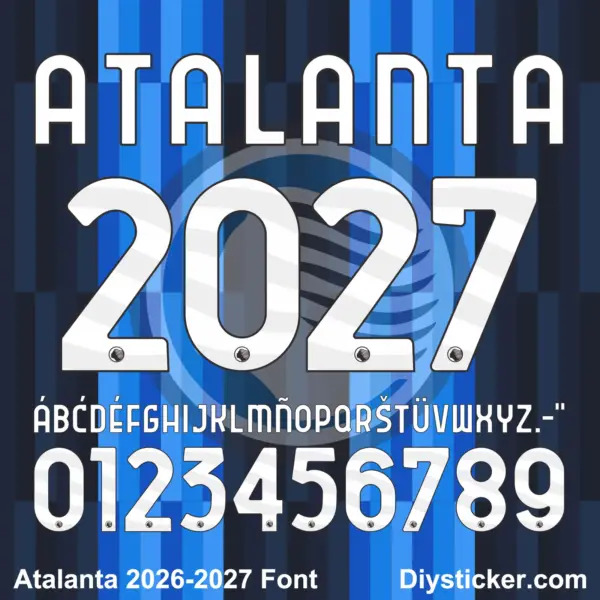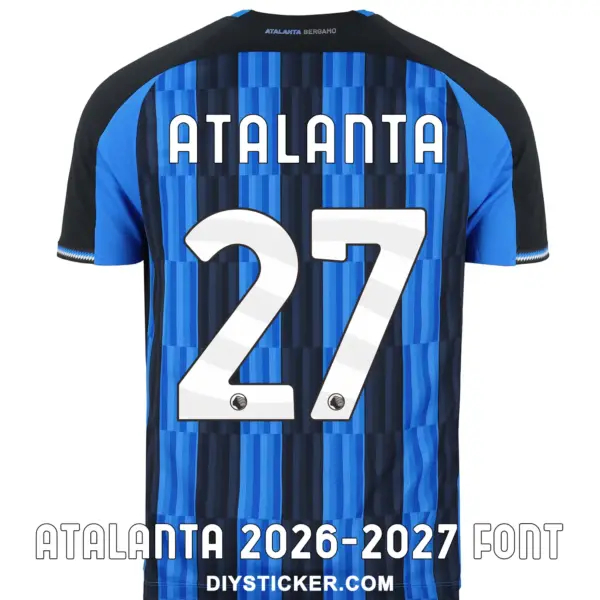
Equip your workshop floor with the verified Atalanta 2026-2027 font master file bundle, engineered specifically for custom uniform printers, sports apparel shops, and football jersey collectors. This premium digital asset delivers a perfect recreation of the clean rounded-corner sans-serif typography, subtle diagonal shading highlights, and official baseline circular goddess emblem placeholders deployed by La Dea. Bypass the time-consuming process of manually tracking low-fidelity photos—our production-ready assets provide installable desktop system typefaces and clean cutting vectors for immediate download right after checkout.
Club-Accurate Details: Captures the unique rounded geometric letterforms, subtle diagonal gradient wave fills, and baseline Atalanta crest placeholders.
Premium Atalanta 2026-2027 Jersey Typography & Numbers Archive
True Replica Detailing: Every asset accurately maps the unique character tracking, smooth squarish-rounded profiles, subtle interior tonal bands, and precise baseline Atalanta emblem markers required for collector-grade apparel customization.